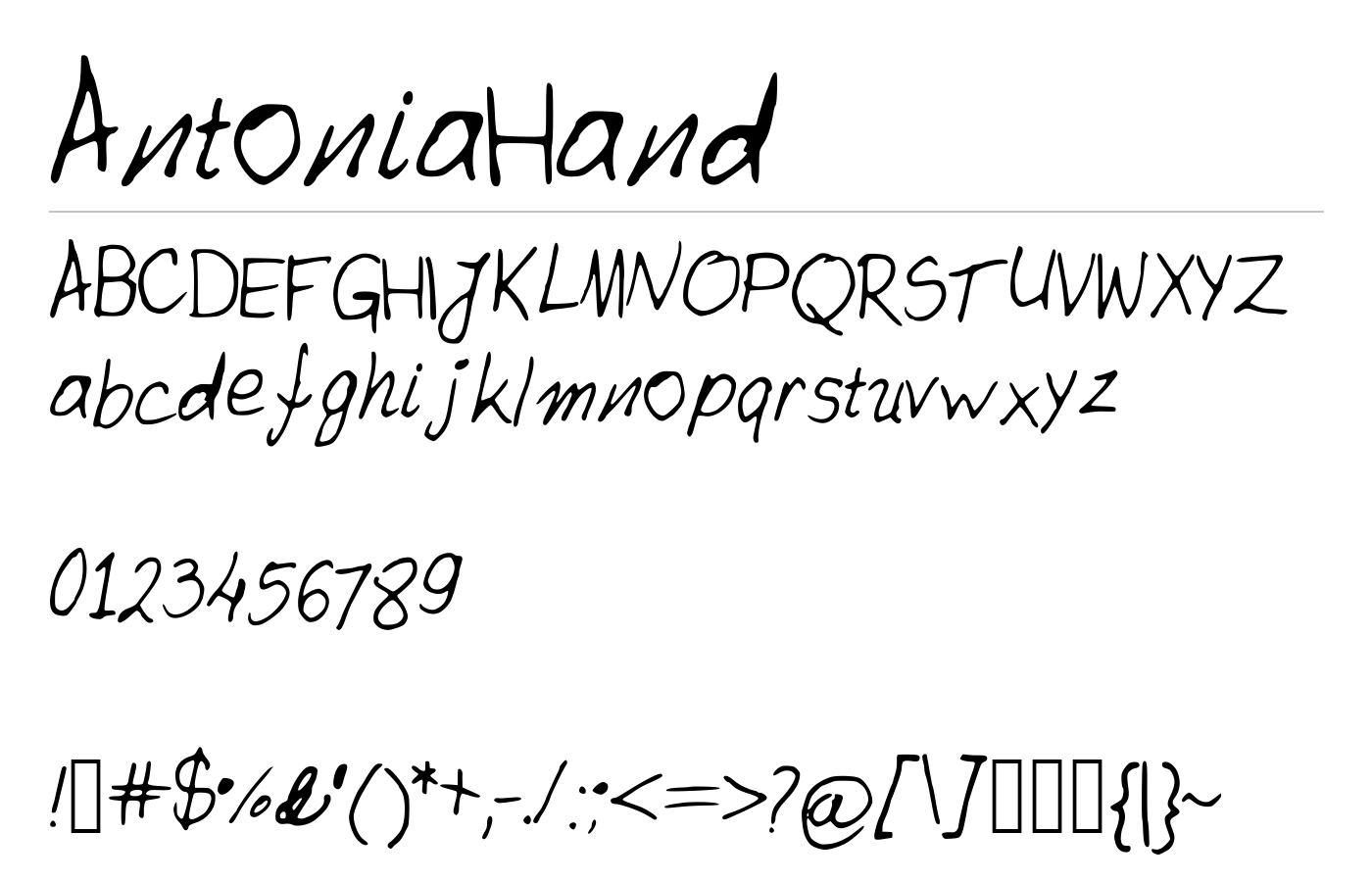
AntoniaHand is a casual, handwritten-style font that exudes a friendly and approachable vibe with its slender, slightly irregular strokes and natural flow. Its tall x-height, mixed case forms, and playful character shapes make it perfect for personal, creative projects or branding that seeks a warm, human touch. This font works well in informal designs like greeting cards, blogs, or artisanal packaging where a personal, expressive feel is desired.
AntoniaHand Font
About AntoniaHand Font